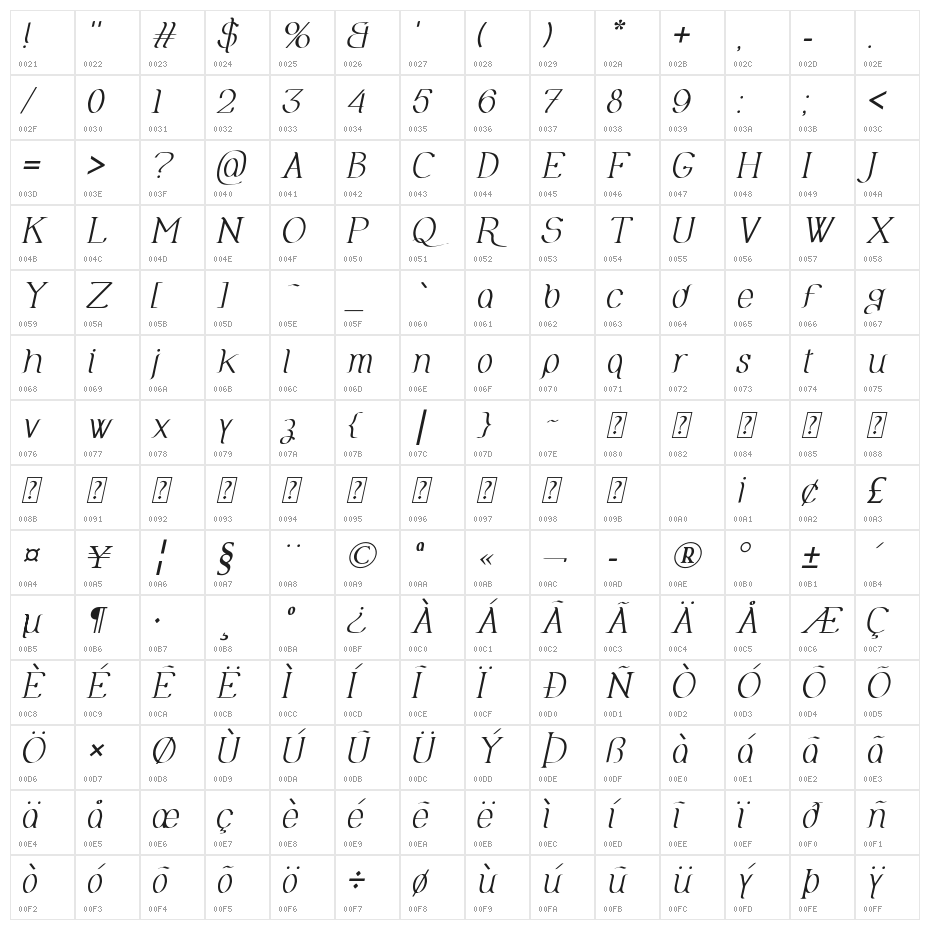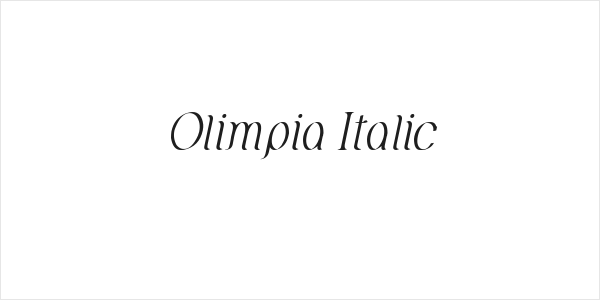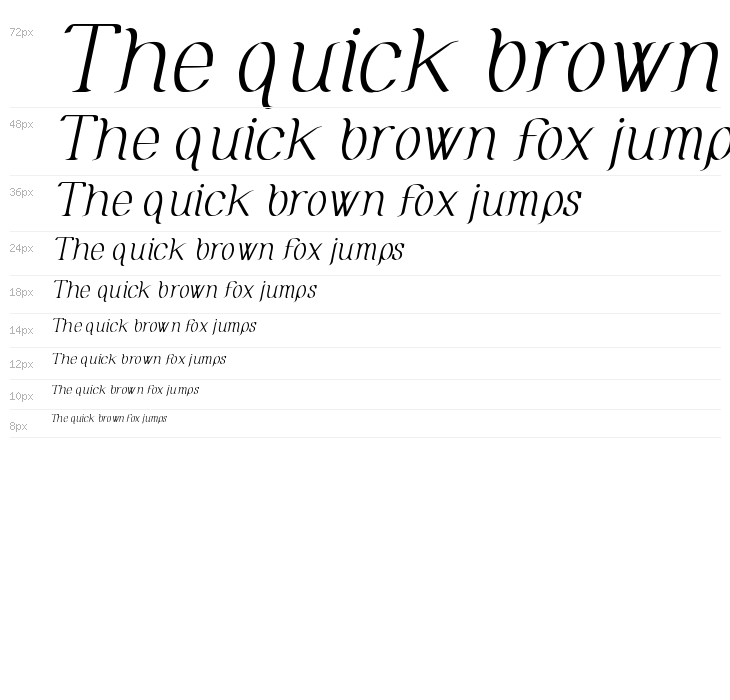
Olimpia Italic Font
Olimpia Italic Description
This elegant and sophisticated font features a classic italic style with smooth, flowing curves and a refined appearance. The uppercase letters are tall and slightly narrow, with distinctive serifs that add a touch of formality. The lowercase letters maintain a consistent slant, enhancing the overall fluidity and grace of the typeface. Numbers are well-proportioned, aligning harmoniously with the letters. Special characters are thoughtfully designed, ensuring versatility in various contexts. The font's balanced contrast in stroke thickness contributes to its readability and aesthetic appeal.
| Proposed Projects | Ideal for wedding invitations, luxury branding, editorial design, and elegant packaging. |